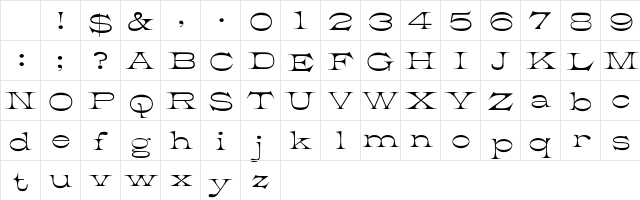
Complete K22 Athenian Wide Regular glyph index. Displaying only characters natively supported by K22 Athenian Wide Regular font.
K22 Athenian Wide is a composed and adaptable typeface that performs quietly and consistently across a wide range of design contexts.